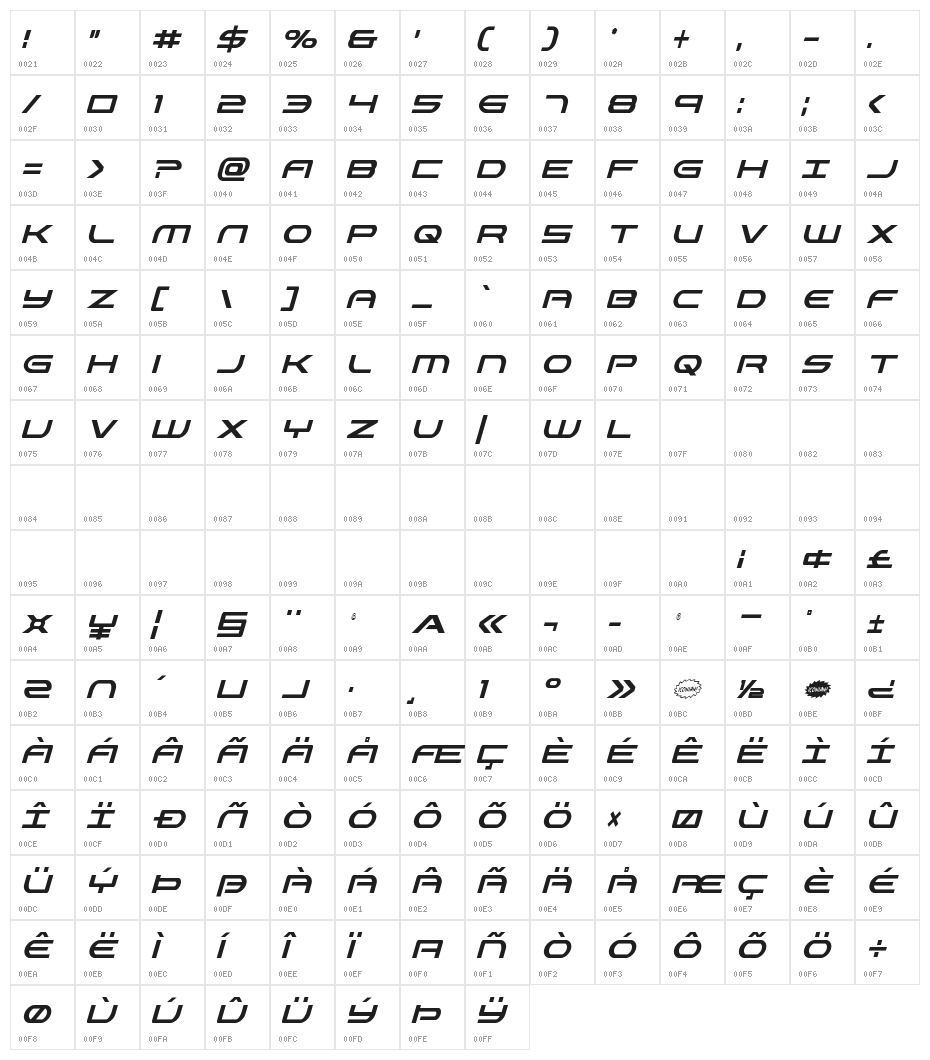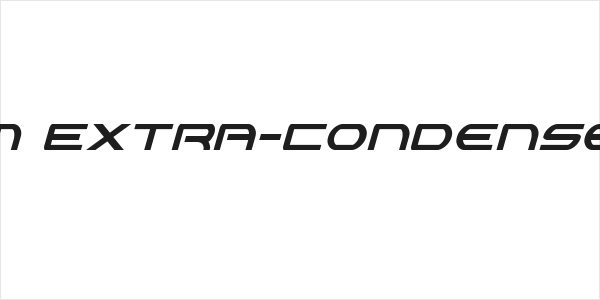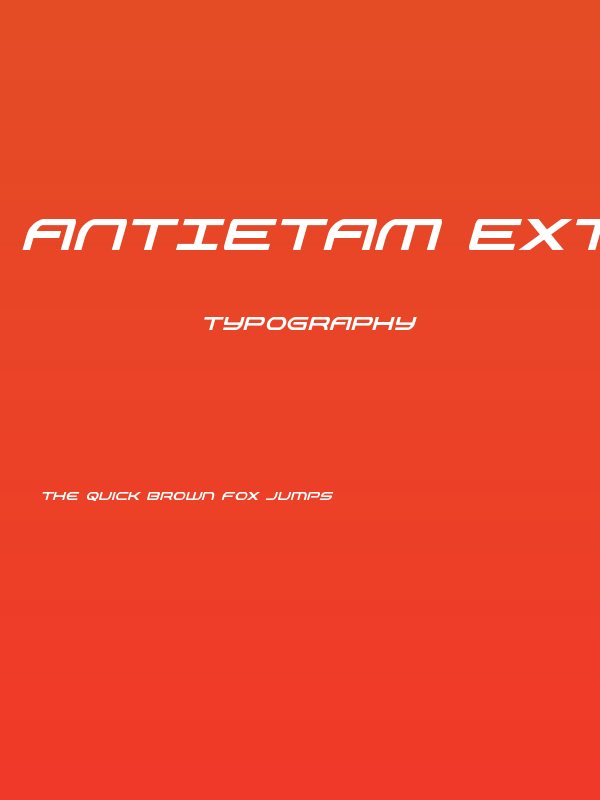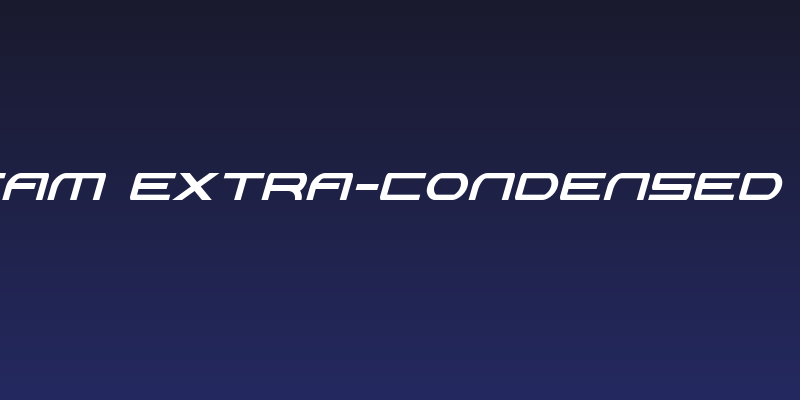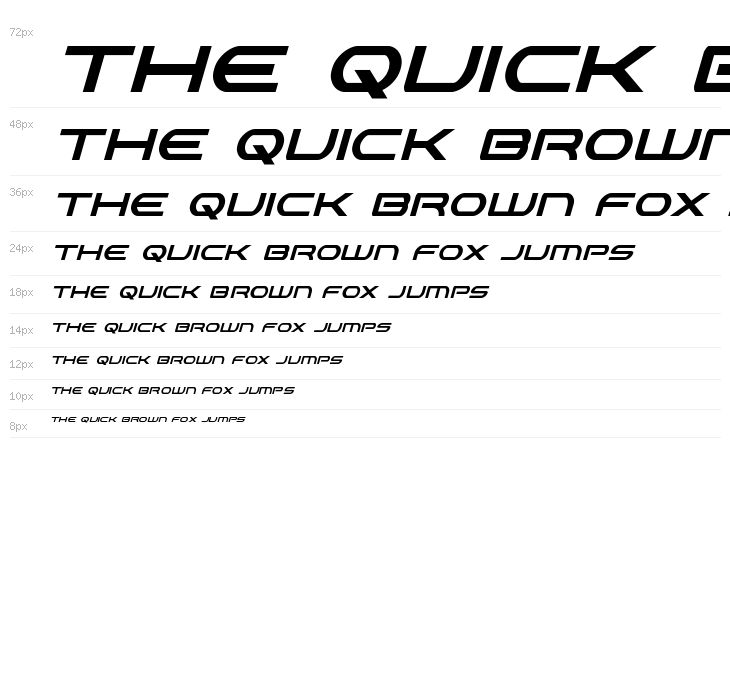
Antietam Extra-Condensed Italic Font
Antietam Extra-Condensed Italic Description
This font features a sleek, modern design with an italicized, extra-condensed style. The characters are elongated and slightly slanted, giving a sense of motion and speed. The strokes are uniform in thickness, providing a clean and streamlined appearance. The uppercase and lowercase letters maintain a consistent height, contributing to a cohesive look. The numerals and special characters are designed to match the overall aesthetic, ensuring versatility across different uses.
| Use Case | Headlines, Logos, Advertising |
| Proposed Projects | Ideal for branding, advertising, and editorial design where a modern and dynamic look is desired. |